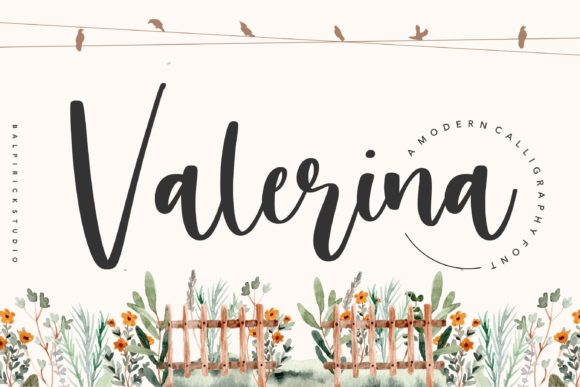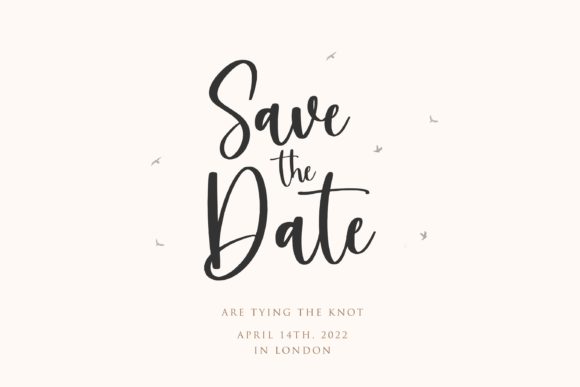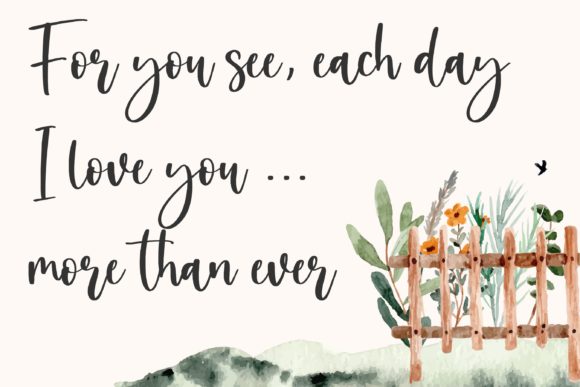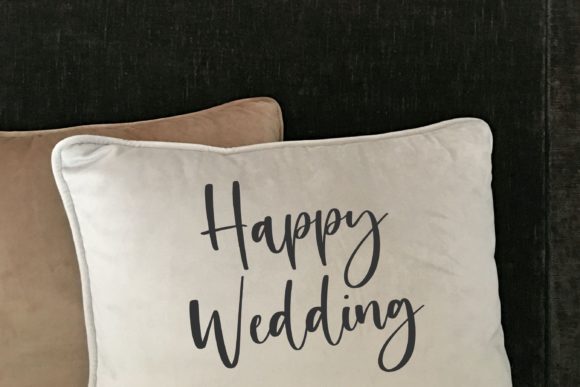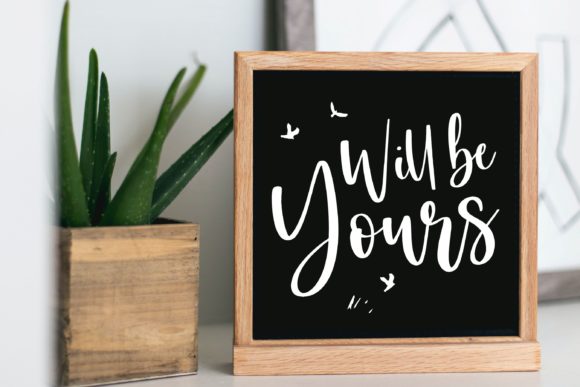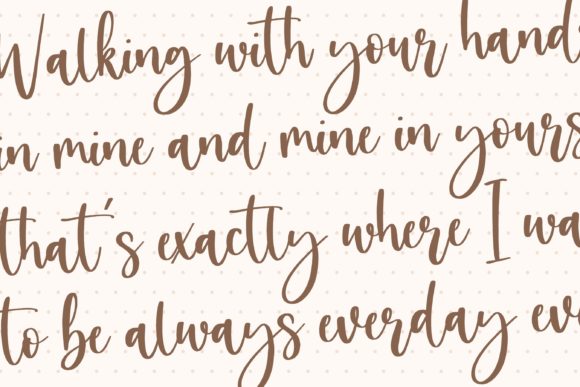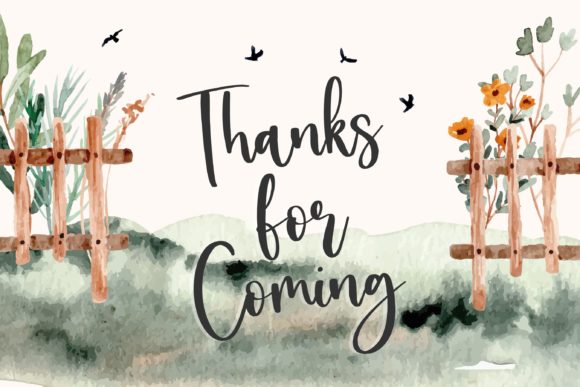
Valerina Font
About Valerina Font
Valerina is a magical handwritten font, whose elegance has been nicely emphasized with the help of a brush pen. It will elevate a wide range of design projects to the highest level, be it branding, headings, wedding designs, invitations, signatures, logos, labels, and much more!